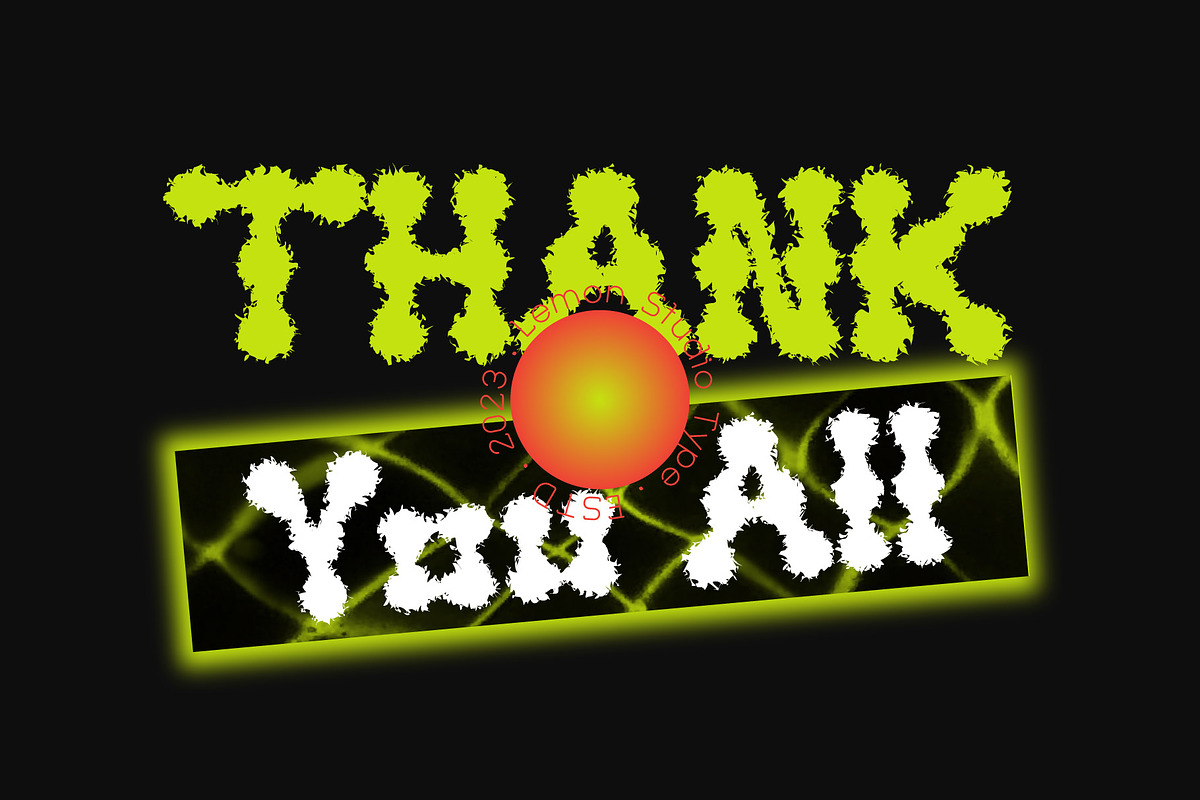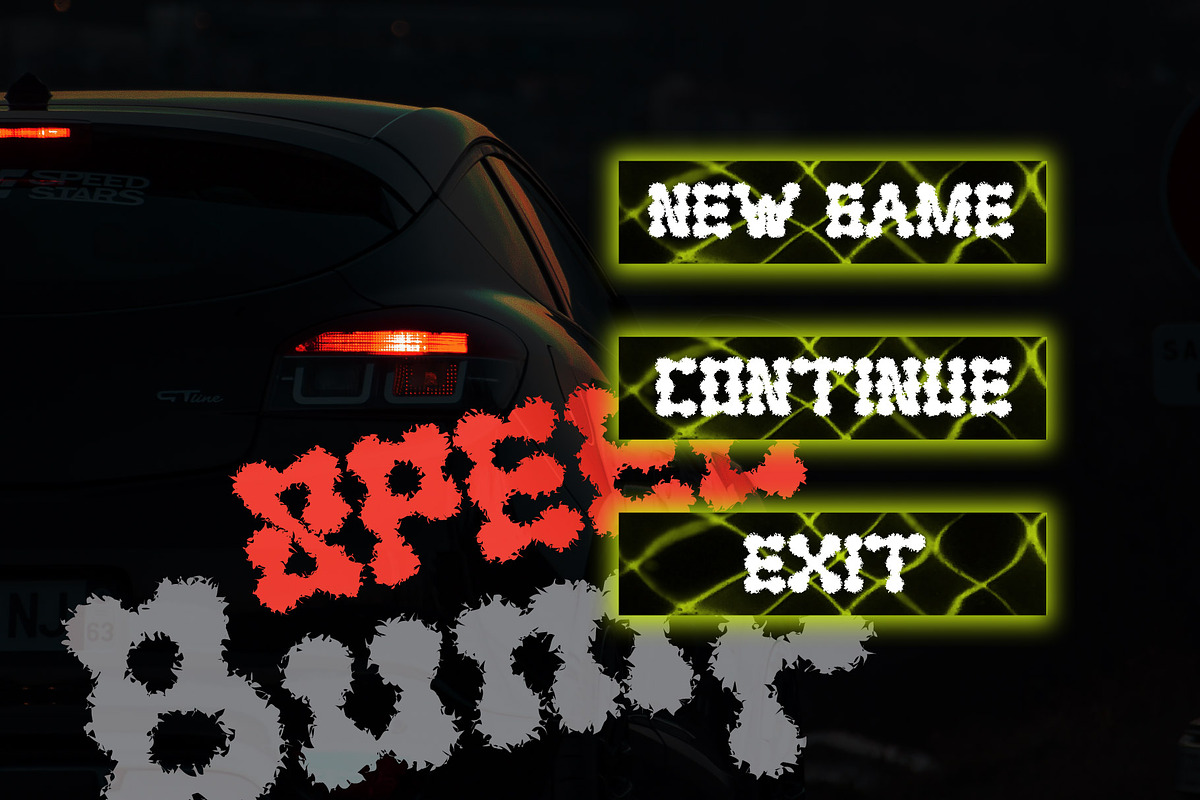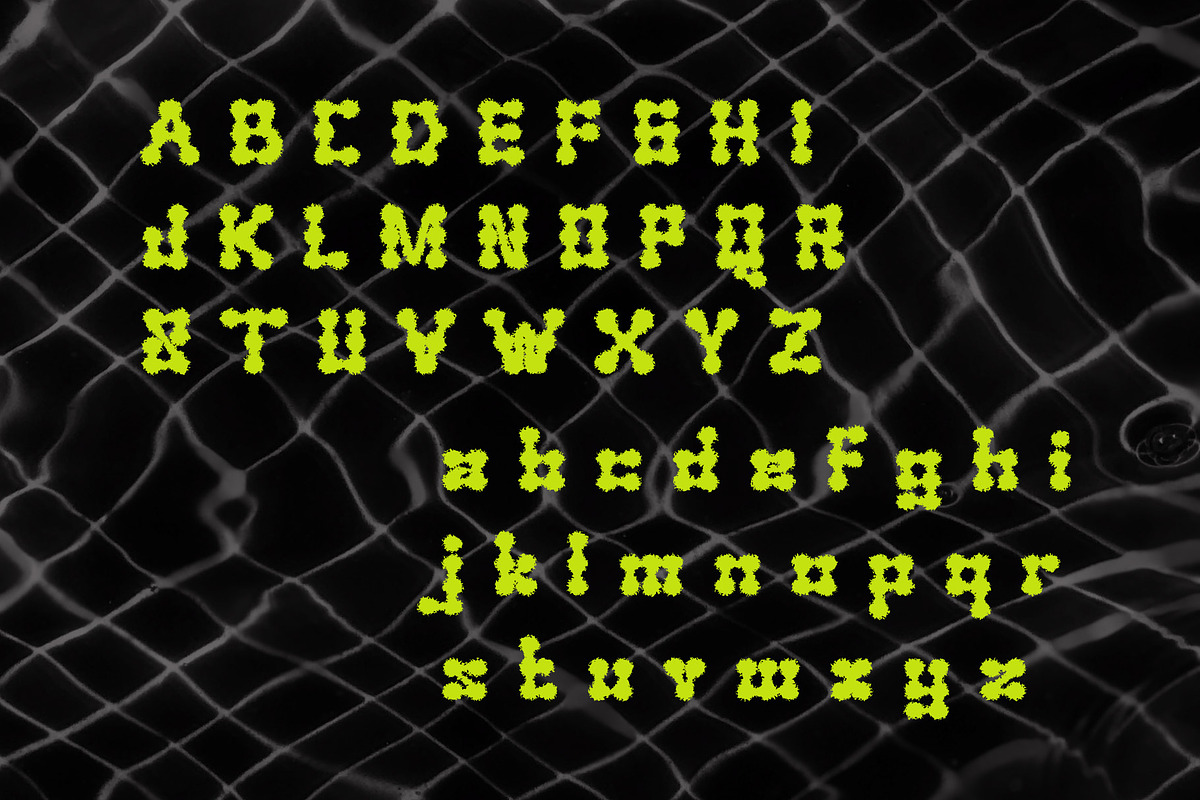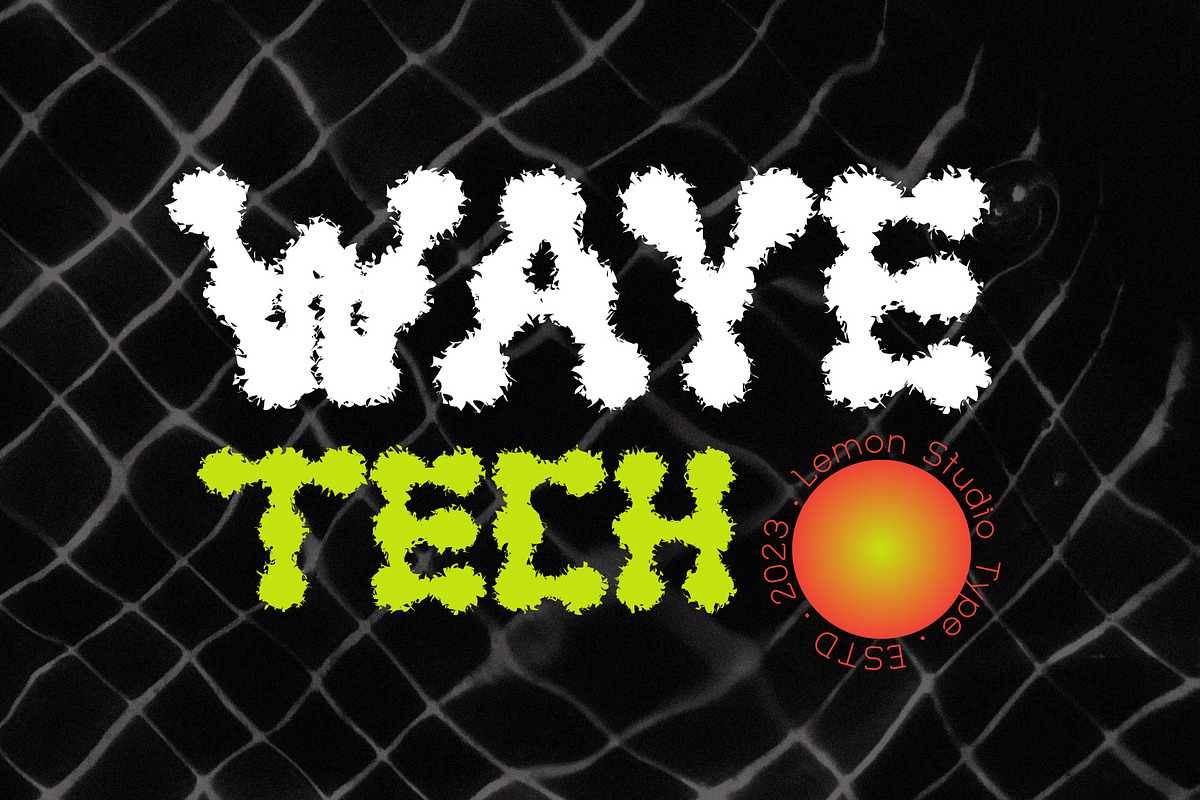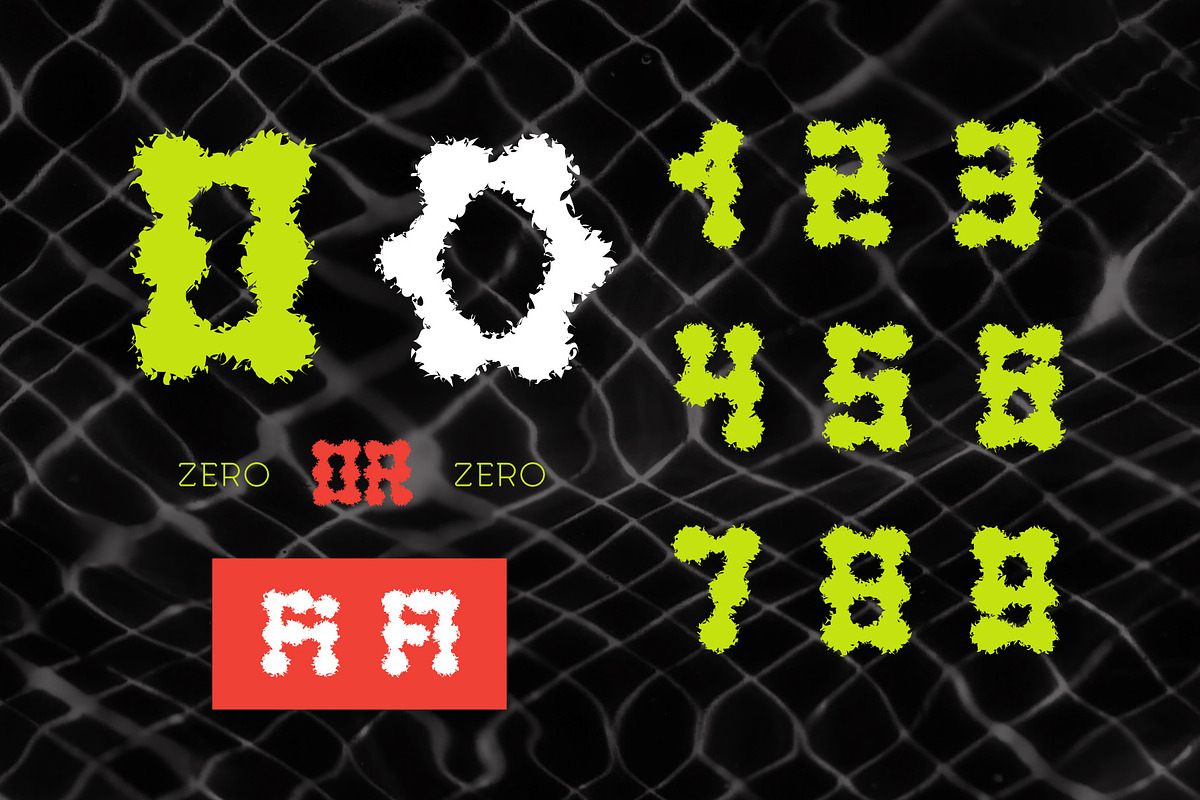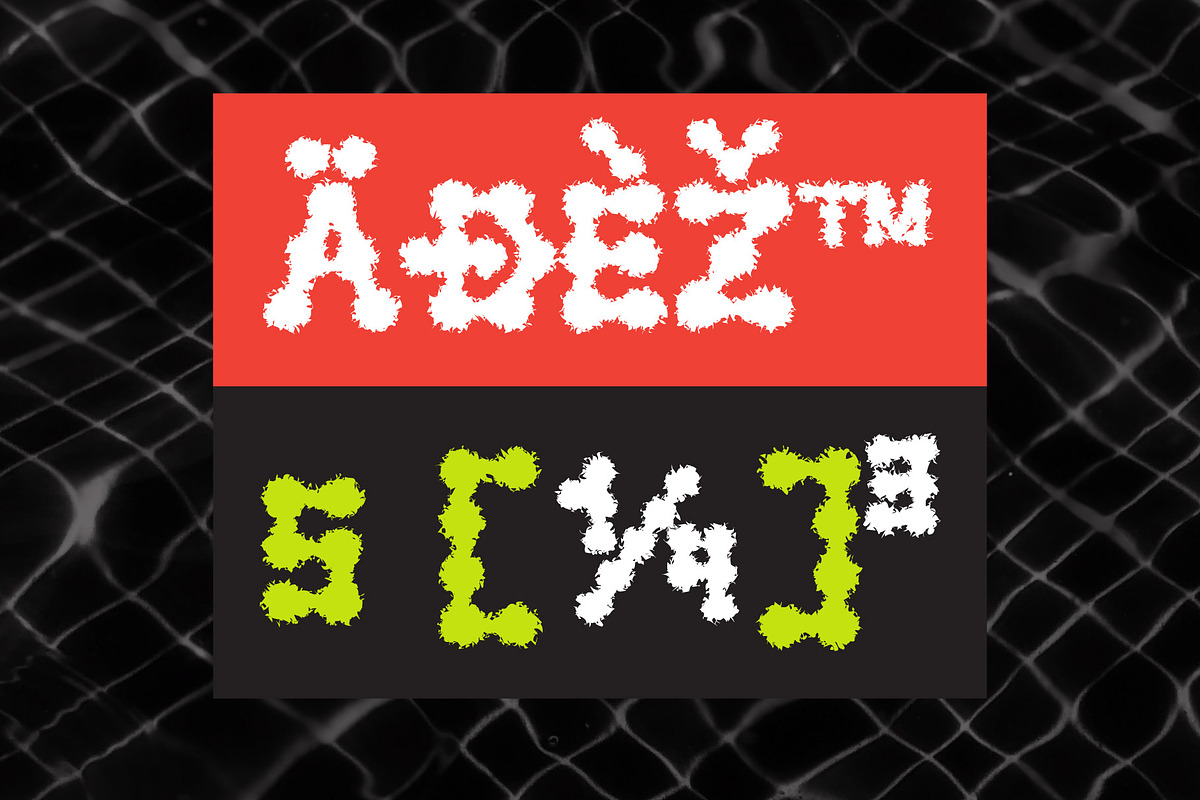
Waye Tech - Futuristic Symbol
New symbols font which has very unique characteristics, look at it in the form of a rough formation of dots that are connected to each other resembling the shape of an atom. Yes, that's why you use this font in sci-fi and techno-themed designs.
STANDARD CHARACTER SET
OPEN TYPE FEATURES:
-Unique Stylistic Alternates of "0"
-Standard Ligatures
-Fractions
- Superscript
-Multilingual Support.